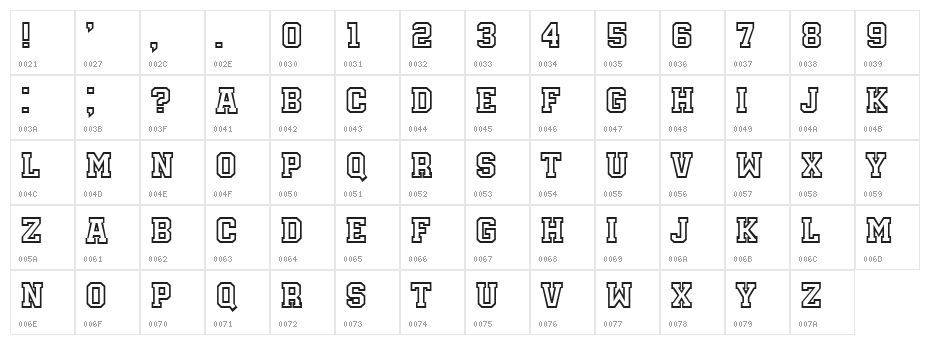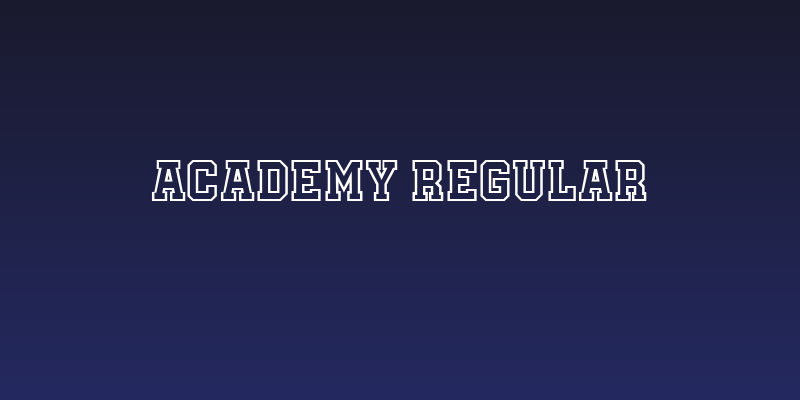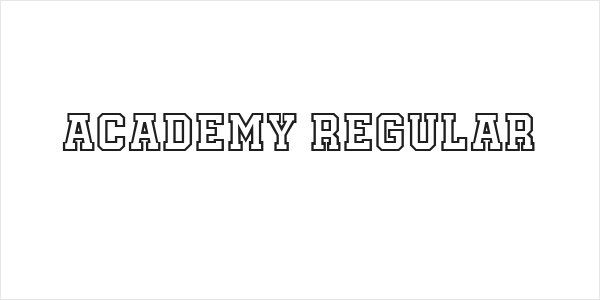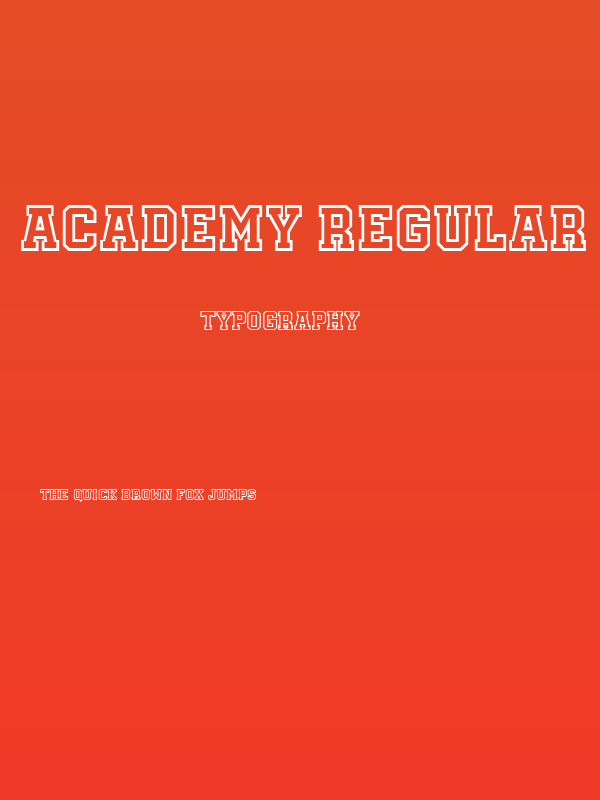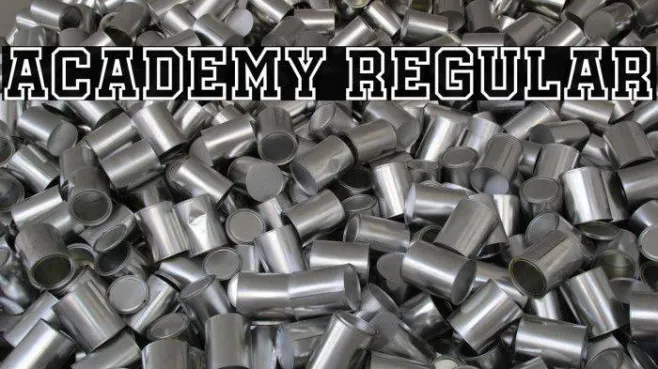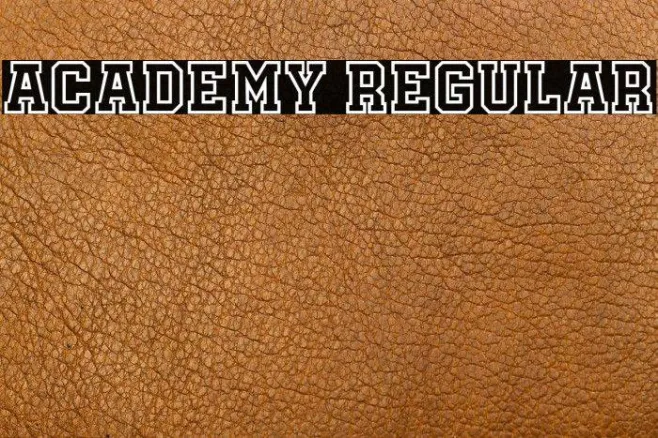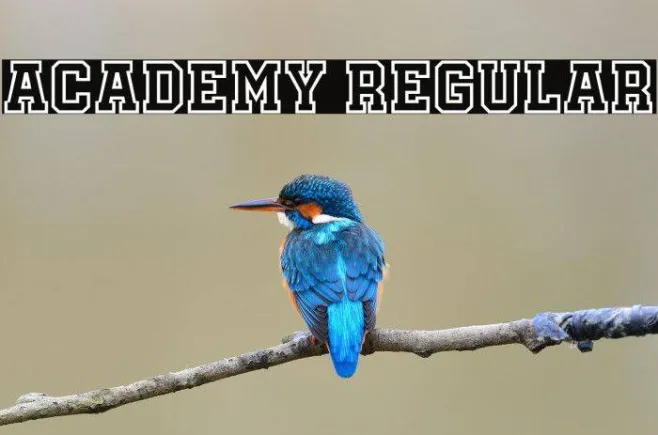
Academy Regular Font
Academy Regular Description
This font features a bold and structured design with a strong presence. It has a distinct outline style that gives it a three-dimensional effect, making it stand out in any design. The characters are well-defined with sharp angles and a geometric feel, reminiscent of collegiate or varsity aesthetics. The uppercase and lowercase letters maintain a consistent style, ensuring readability and uniformity. The numerals and special characters follow the same bold outline, making them easily recognizable and visually appealing.
| Proposed Projects | Ideal for sports team logos, school banners, event posters, and merchandise designs. |